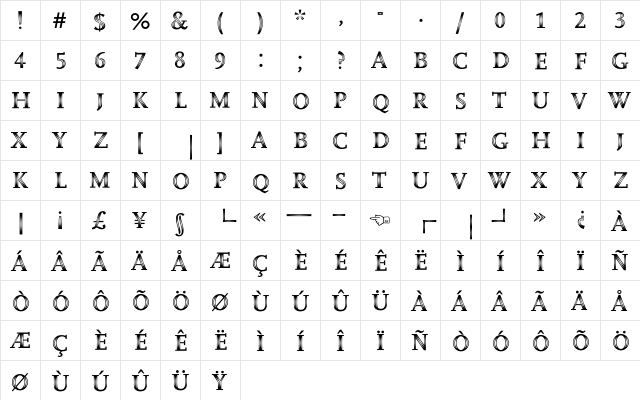
ScalaJewel Crystal Regular Font Preview
ScalaJewel Crystal Regular
Design Context for ScalaJewel Crystal Typeface
ScalaJewel Crystal is a composed and adaptable typeface that performs quietly and consistently across a wide range of design contexts.
Pro Tip: Use ScalaJewel Crystal in both headline and body roles to test its range before committing to a single application.